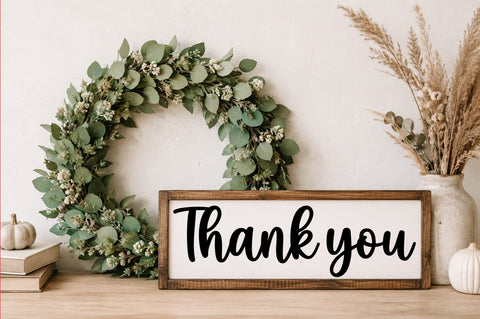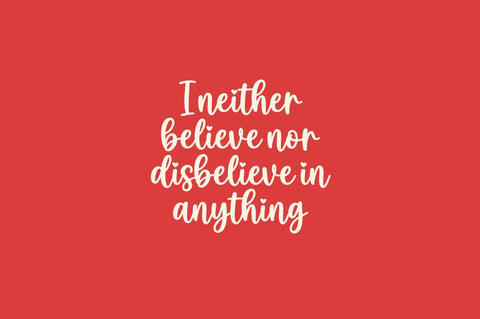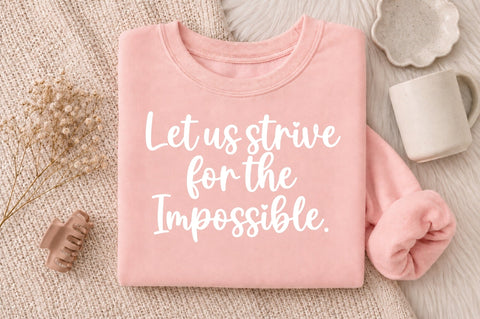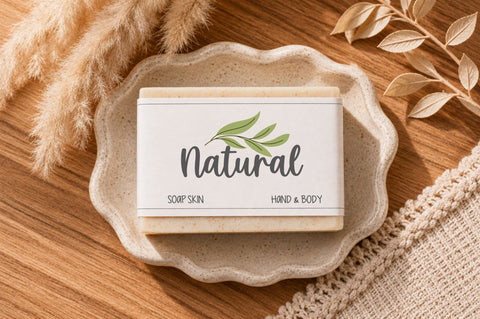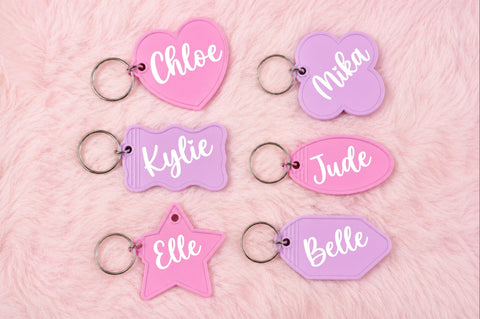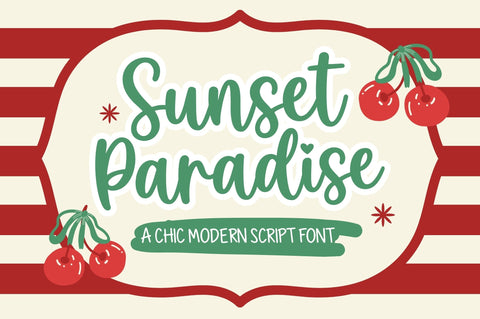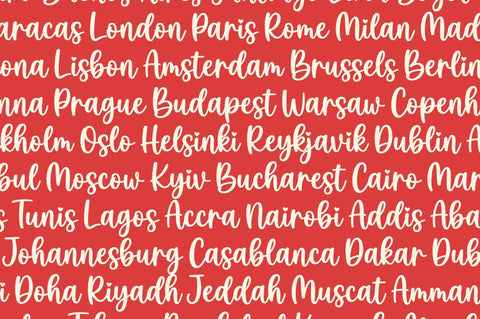
Sunset Paradise
Sunset Paradise | Modern Cute Script Font
Sunset Paradise is a modern script font with a cute, playful, and aesthetic personality. Its smooth handwritten strokes, soft curves, and charming letter connections create a stylish yet approachable look that feels fresh, feminine, and effortlessly trendy.
Designed with a beautiful balance between modern elegance and playful handwriting, Sunset Paradise is perfect for projects that need a warm, cheerful, and youthful touch. The flowing characters make it especially attractive for branding, lifestyle products, stationery, and social media designs.
Perfect for:
🌅 Logo & branding
💕 T-shirt & apparel designs
🧁 Packaging & product labels
✨ Social media graphics
💌 Wedding & invitation designs
📓 Stationery & planners
👜 Fashion & lifestyle branding
🎀 Quotes and personalized products
Sunset Paradise brings a sweet handwritten feeling with a polished modern finish—cute enough to be playful, yet elegant enough to look professional.